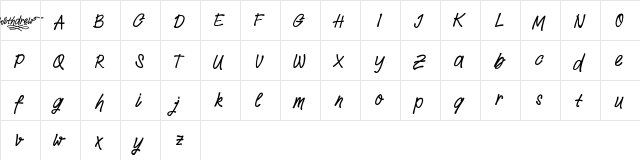
Withdrew script Font Preview
Withdrew script
Withdrew script Font Details
| Style | Withdrew script |
| Foundry | alluranet |
| Designer | arip teguh santoso |
Design Context for Withdrew Typeface
Withdrew flows with the natural rhythm of handwritten lettering, making it ideal for designs that call for warmth and personal expression.